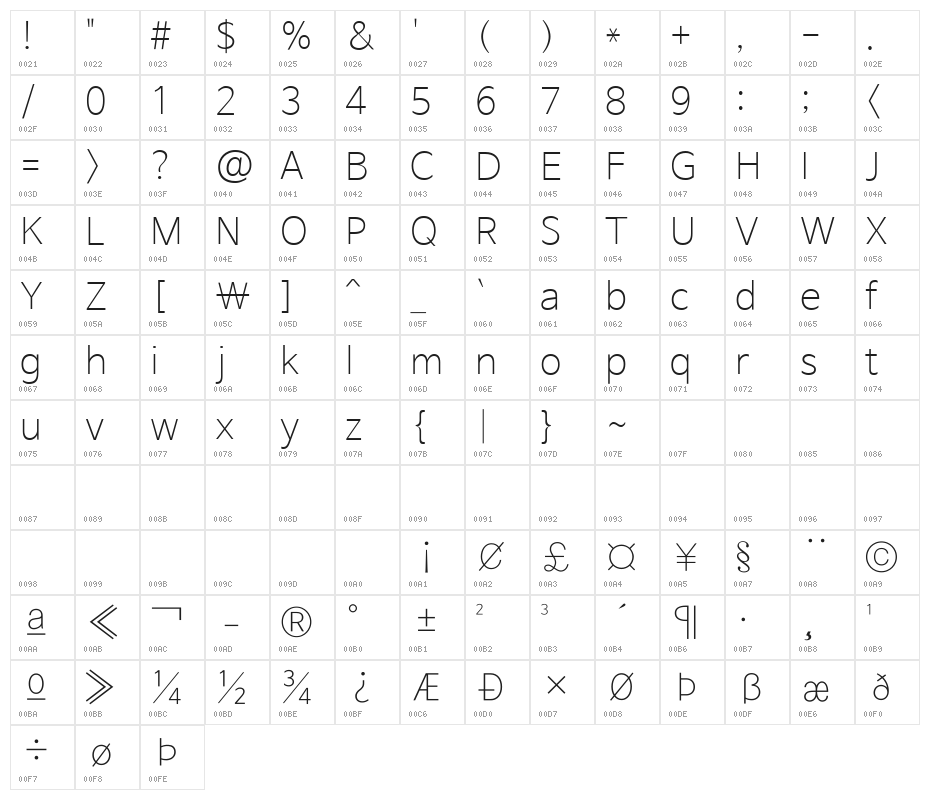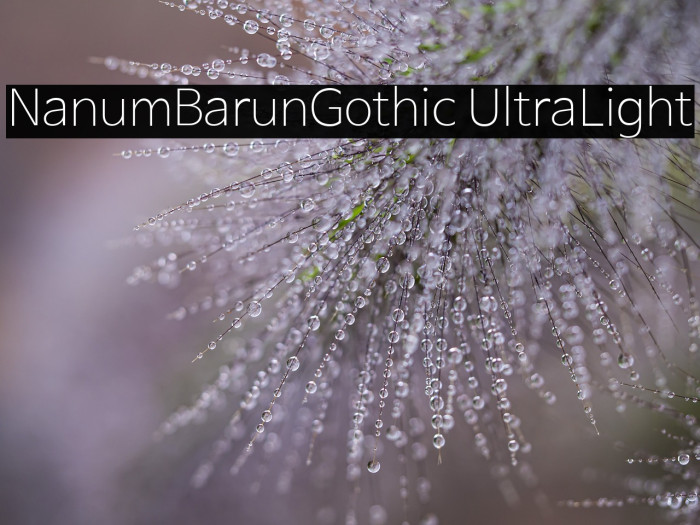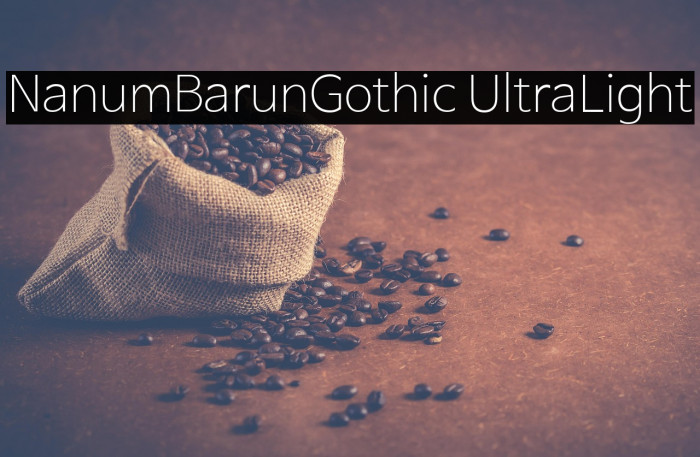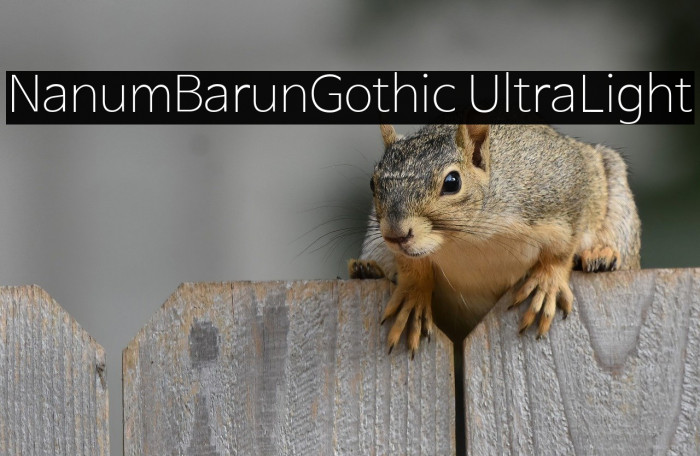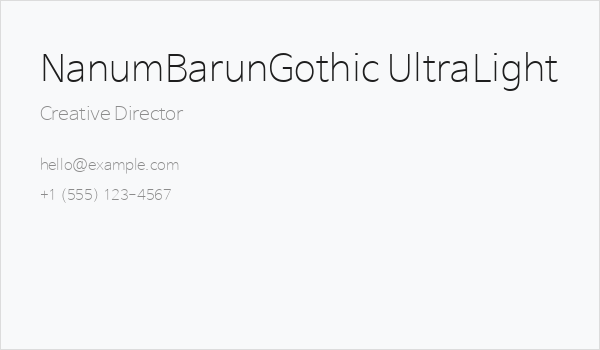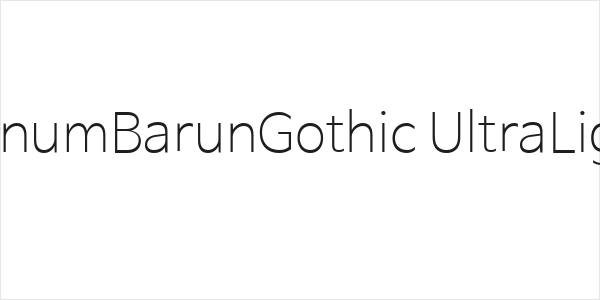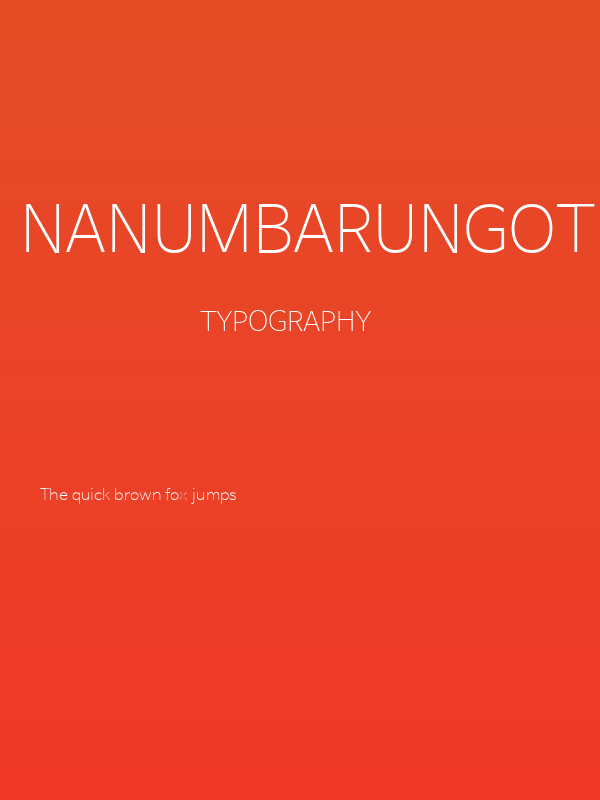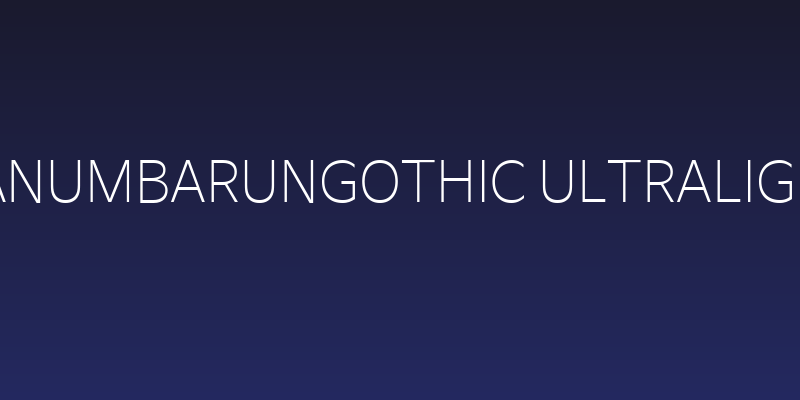
NanumBarunGothic UltraLight Font
NanumBarunGothic UltraLight Description
This font exhibits a clean and modern sans-serif style with ultra-light strokes that give it an airy and minimalist appearance. The characters are well-proportioned, with a uniform stroke width that contributes to its sleek and contemporary look. The uppercase and lowercase letters maintain a consistent height and spacing, ensuring readability and elegance. The numerals and special characters are designed with the same attention to detail, providing a cohesive visual experience across all text elements.
| Proposed Projects | Ideal for modern web design, minimalist branding, and clean editorial layouts. |